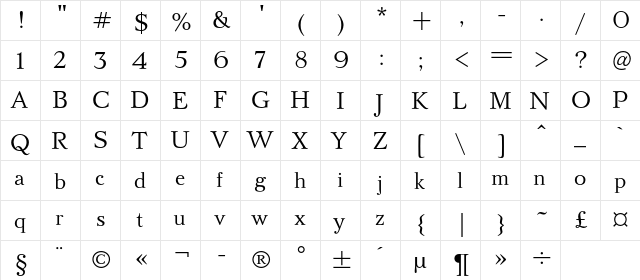
BazhanovC Regular
Design Context for BazhanovC Typeface
BazhanovC is a composed and adaptable typeface that performs quietly and consistently across a wide range of design contexts.